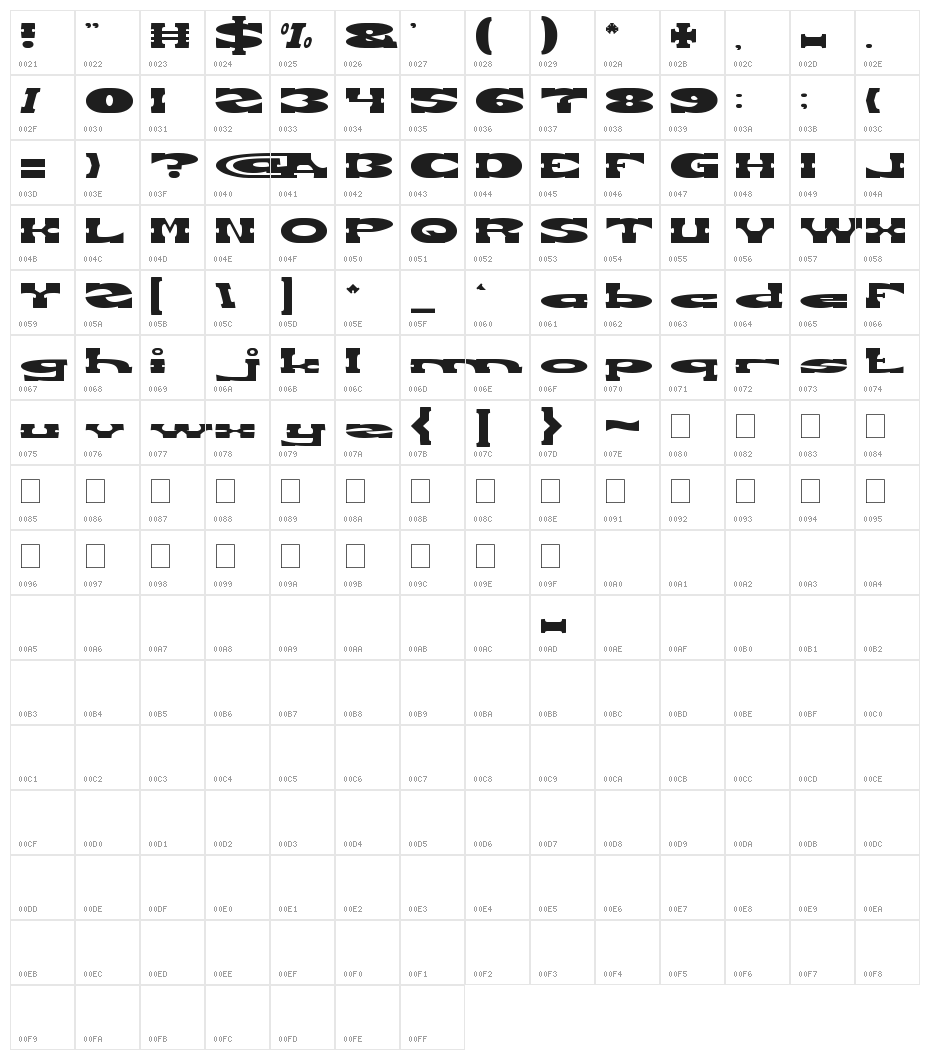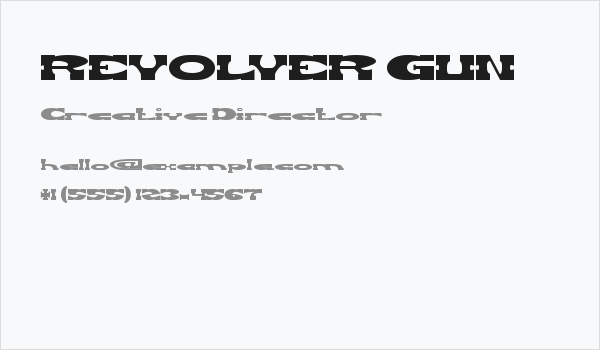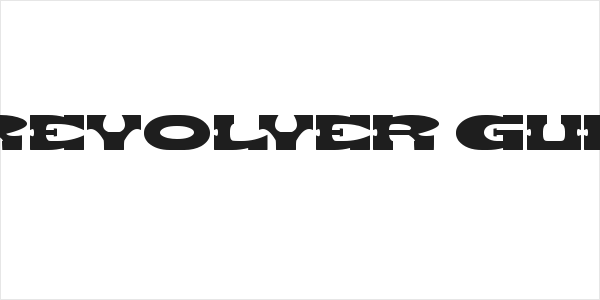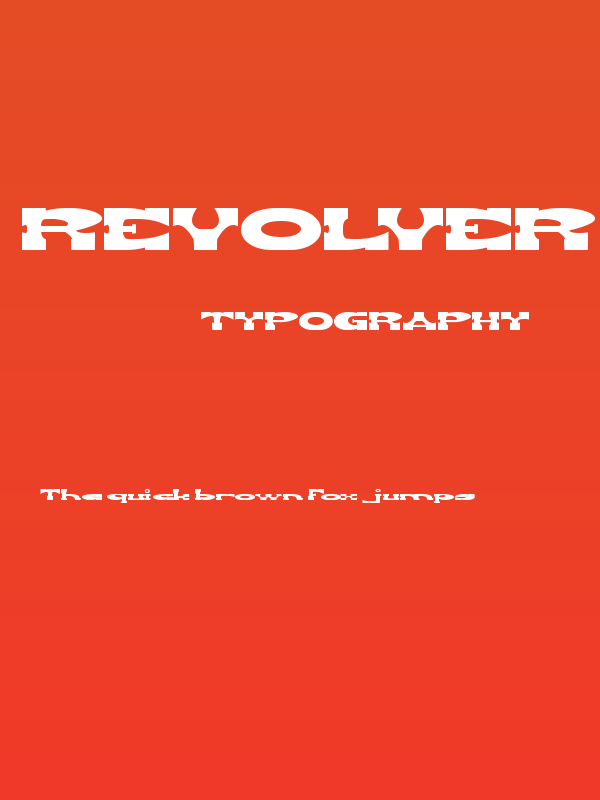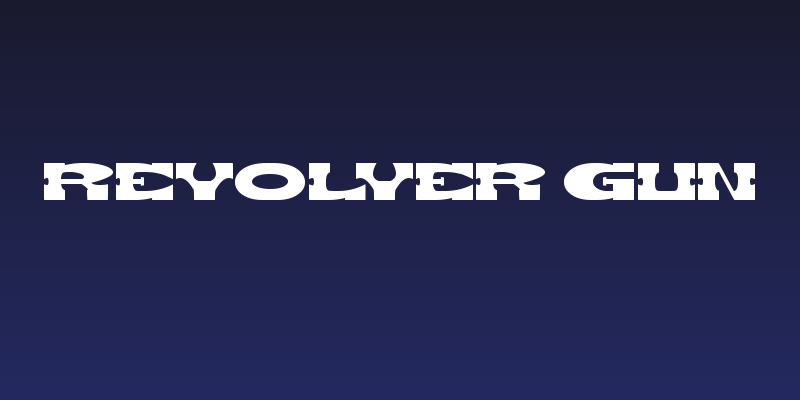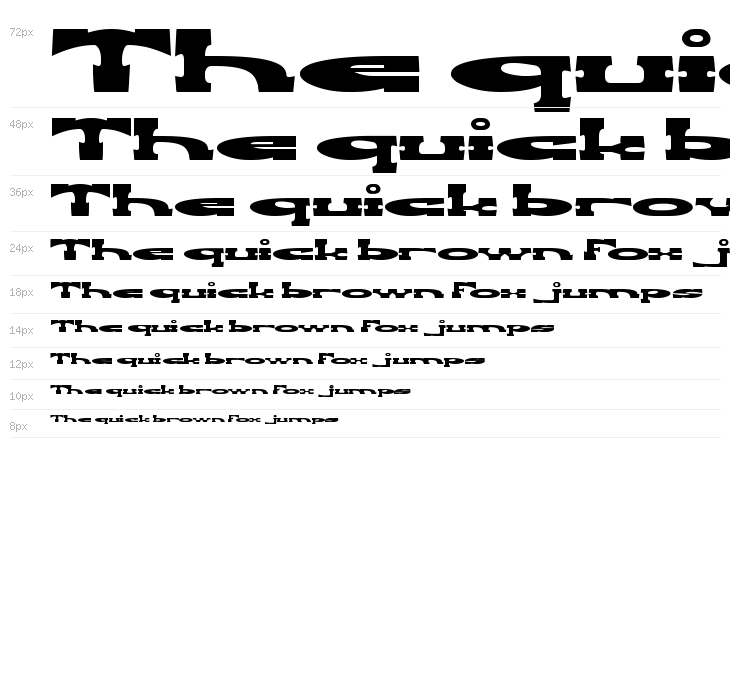
REVOLVER GUN Font
REVOLVER GUN Description
This font features a bold, decorative style with a distinct, edgy appearance. The characters are designed with a unique cut-out effect, creating a dynamic and impactful visual. The uppercase letters are particularly striking, with strong geometric shapes and a sense of movement. The lowercase letters maintain the same boldness, ensuring consistency throughout the typeface. Numbers and special characters are equally bold and follow the same design principles, making them stand out. This font is ideal for projects that require a strong visual statement.
| Proposed Projects | Ideal for poster designs, album covers, branding projects, and any creative work that requires a bold statement. |